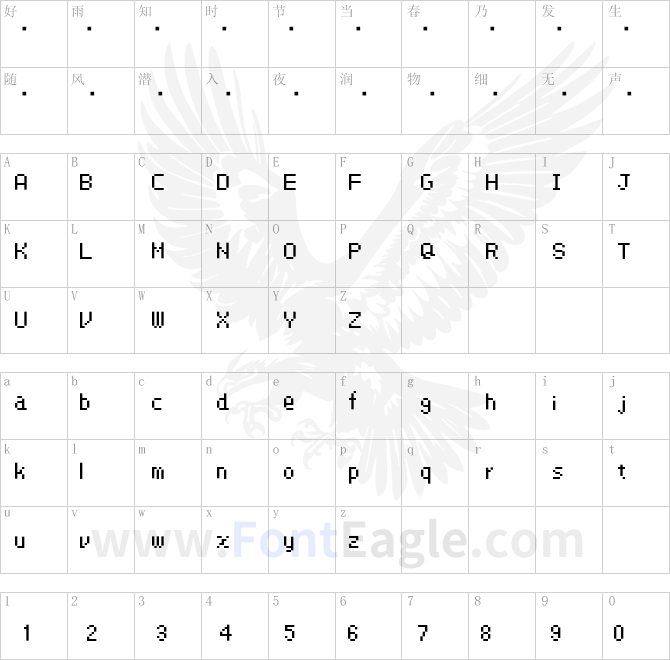
- Font name:HM Slender Bit
- Font Subfamily ID:HM Slender Bit
- Font Full Name:HM Slender Bit
HM-Slender-Bit is a great font, widely used in graphic design, single-page menu design, poster design and other fields, and is deeply loved by designers.HM-Slender-Bit download.